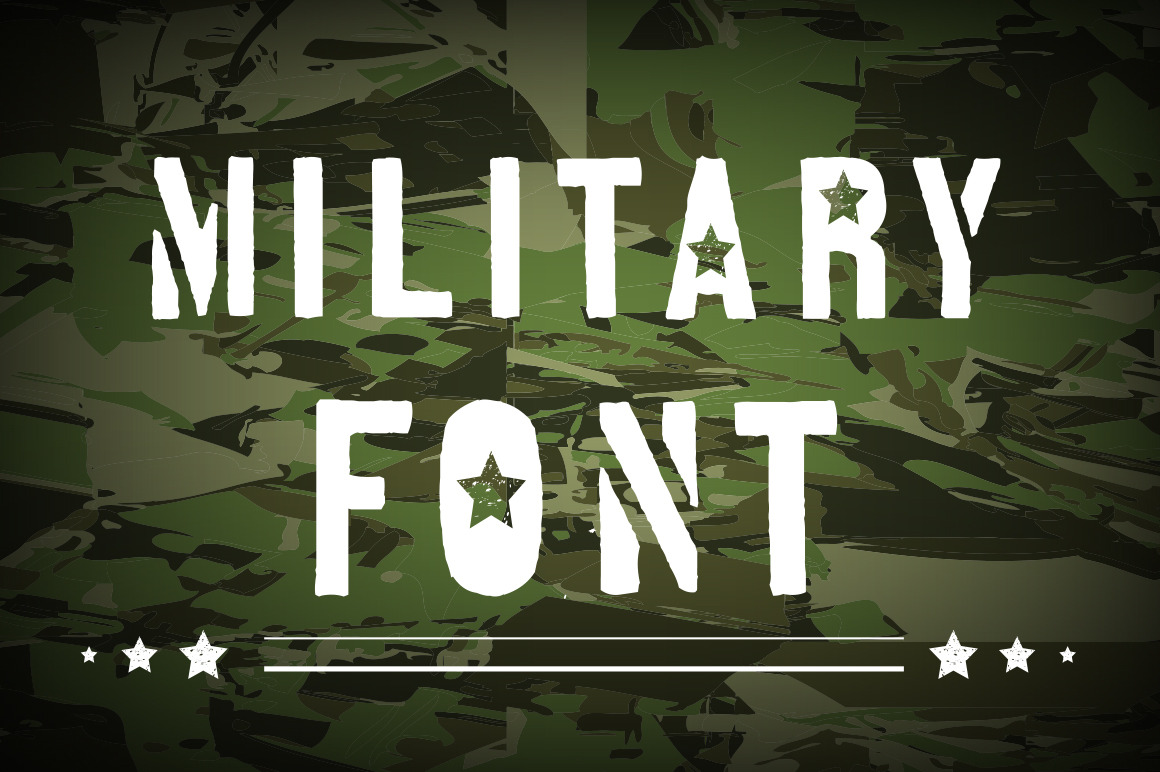
Military font can be used for wallpaper, pattern fills, web page background, surface textures. Perfect for making army posters , birthday cards, scrapbooking, party decorations,invitation cards, party favor tags, label stickers, stationary, gift wrap, packaging, clothes, buttons, pendants, holiday gifts, print on fabrics and so much more...